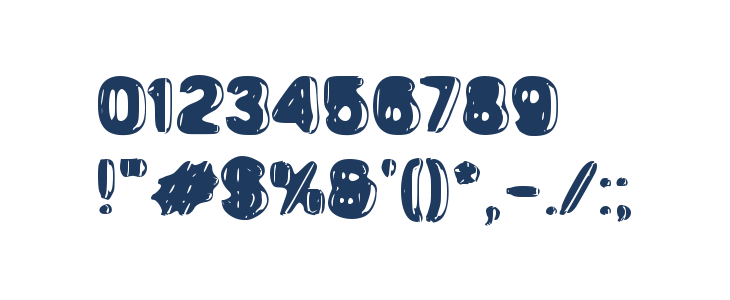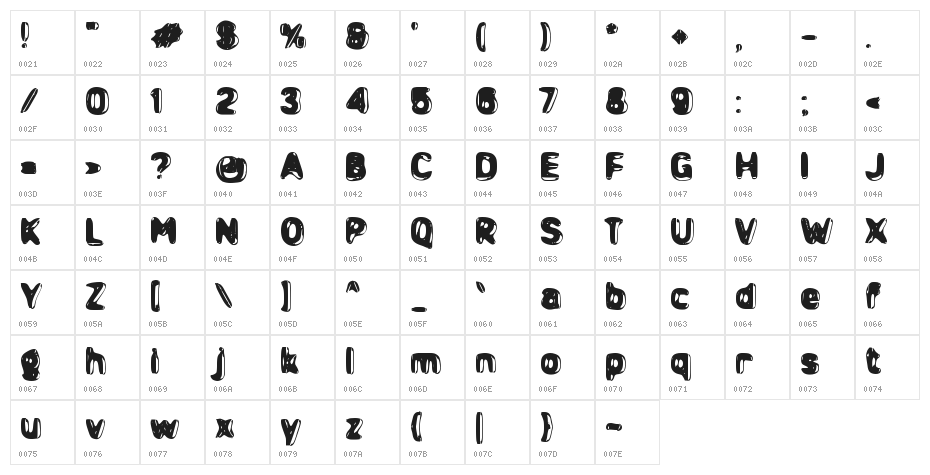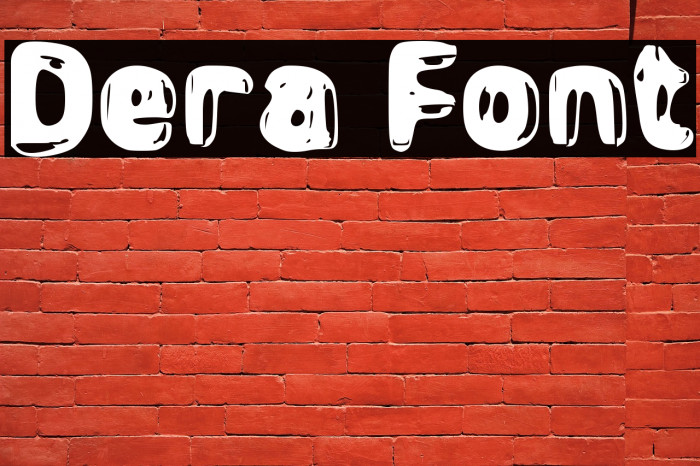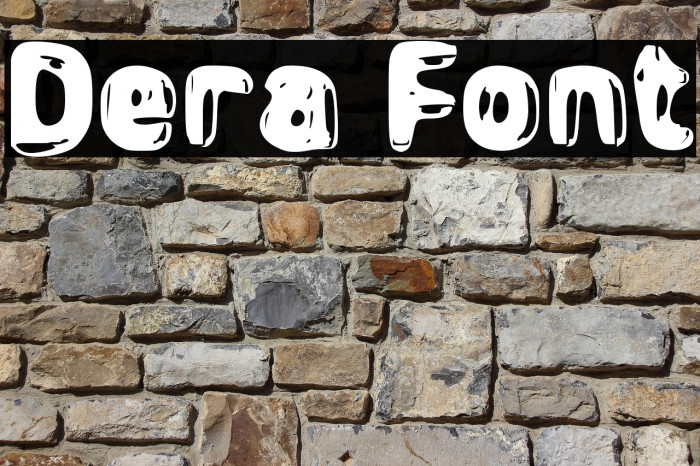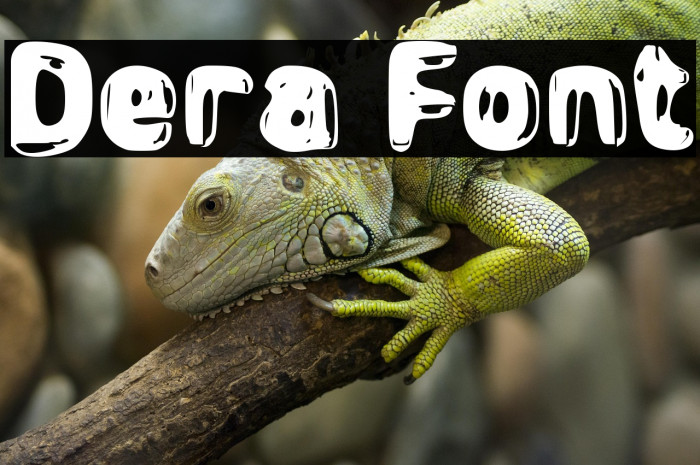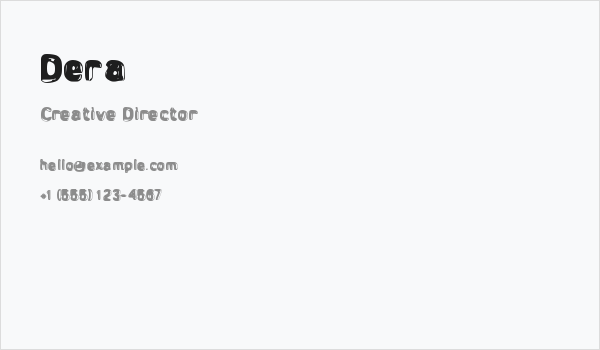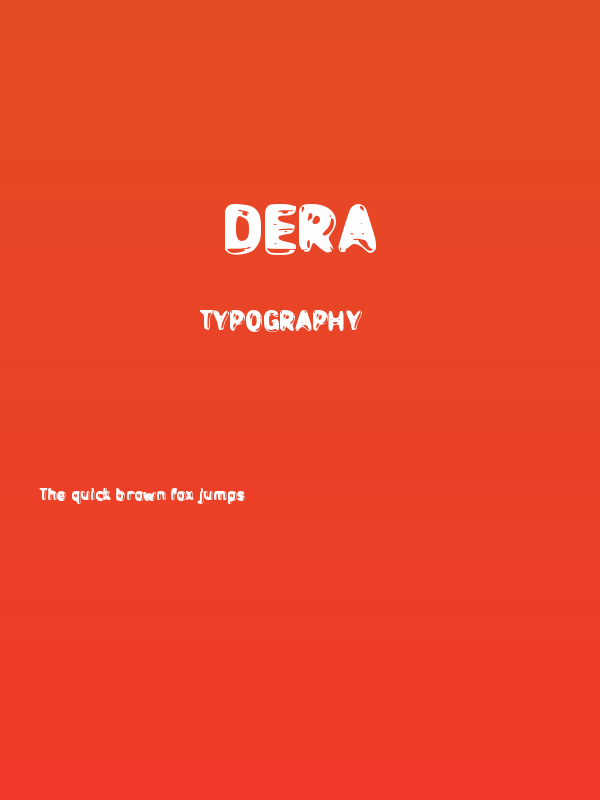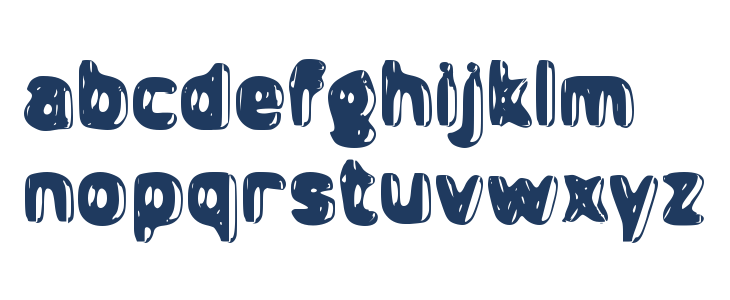
Dera Font
Dera Description
This playful and bold font features a bubbly, rounded design with a distinctively thick and heavy appearance. The characters are filled with irregular, organic shapes that give a sense of movement and fun. The font's unique style is characterized by its bold strokes and playful, almost cartoonish look, making it stand out in any design. The uppercase and lowercase letters maintain a consistent style, with the numbers and special characters following suit. This font is perfect for projects that require a touch of whimsy and creativity.
| Overall Style | Playful, Cartoonish, Fun |
| Proposed Projects | Ideal for children's books, playful branding, party invitations, and creative posters. |